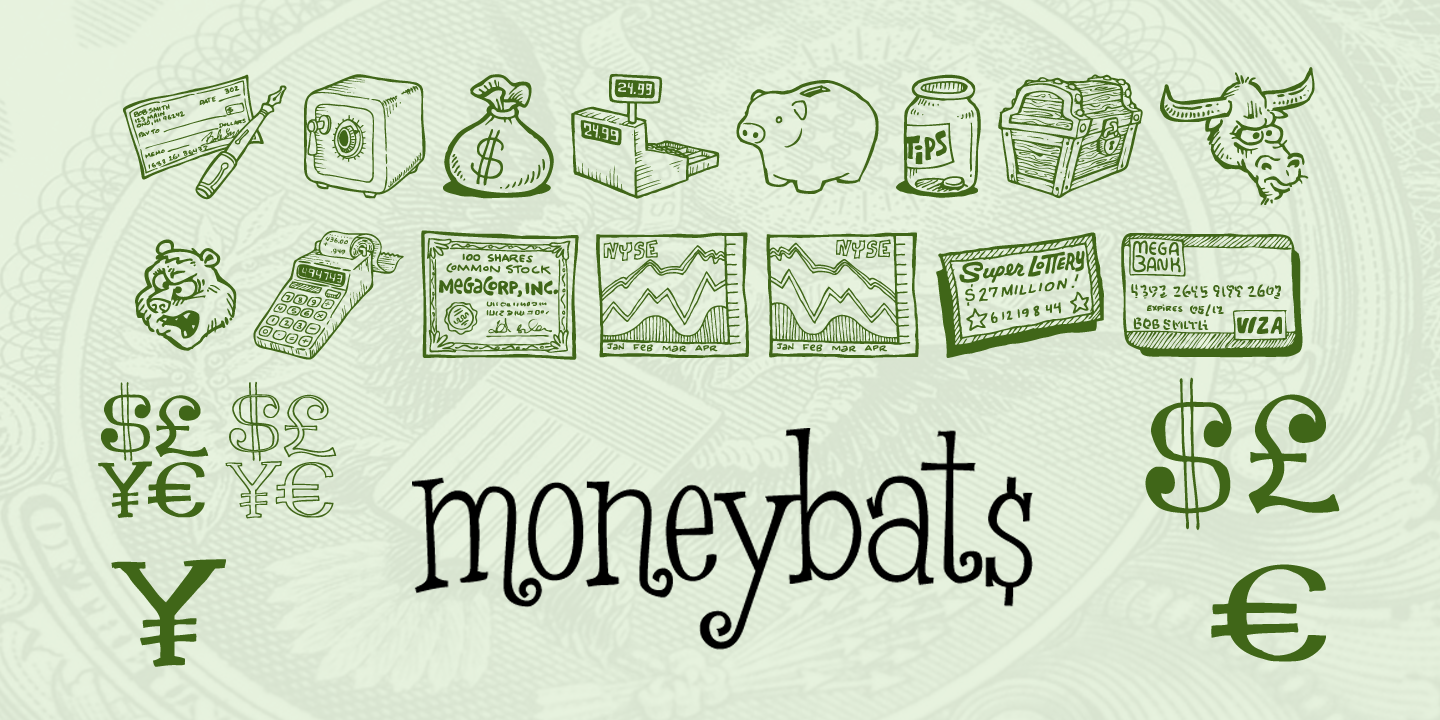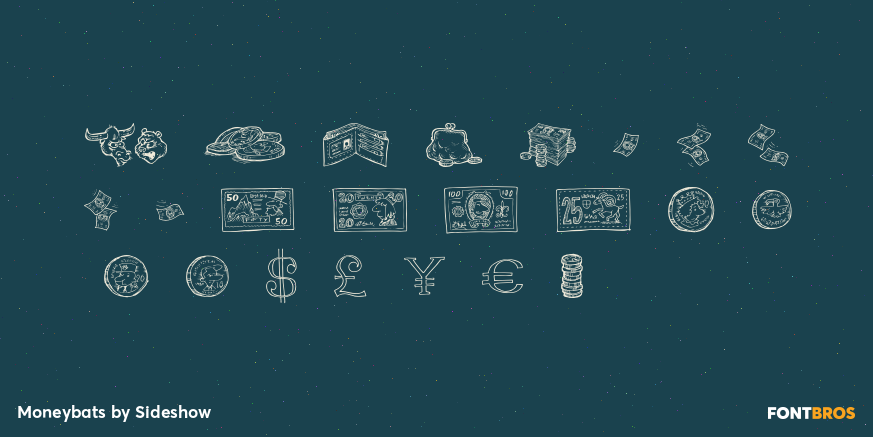
Moneybats
Font Family by Sideshow
Cash flow not what it used to be? Well, for chump change you can pick up Moneybats and inject a little fiscal fun into an economic downturn. Finally, an investment that won't depreciate in value!